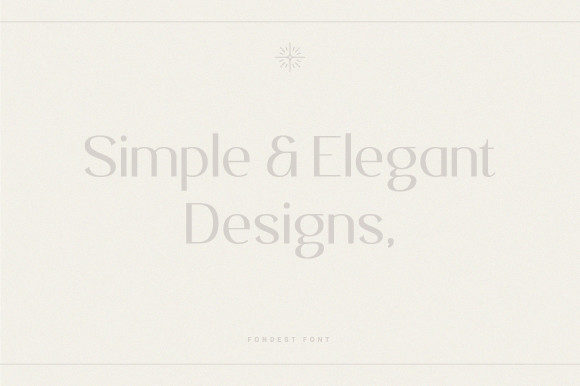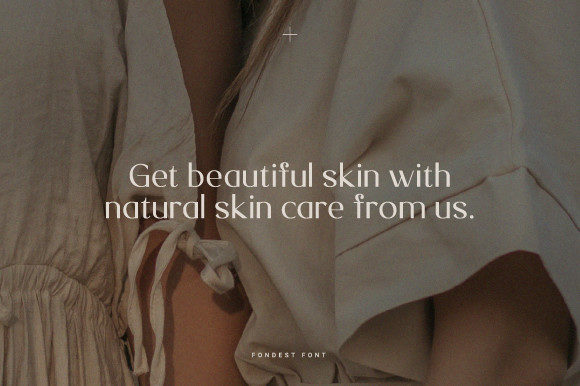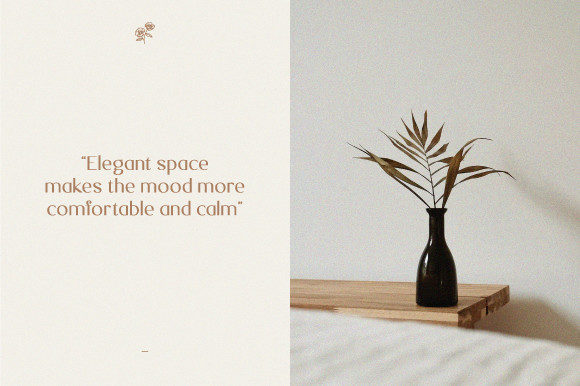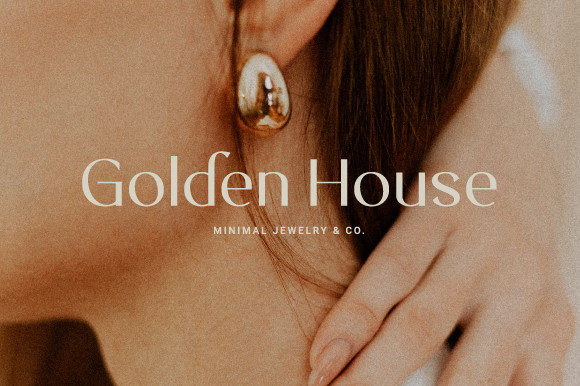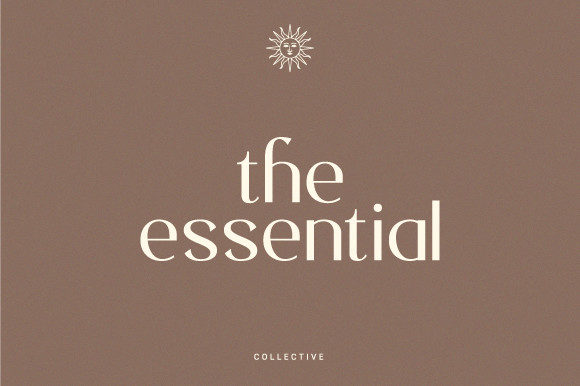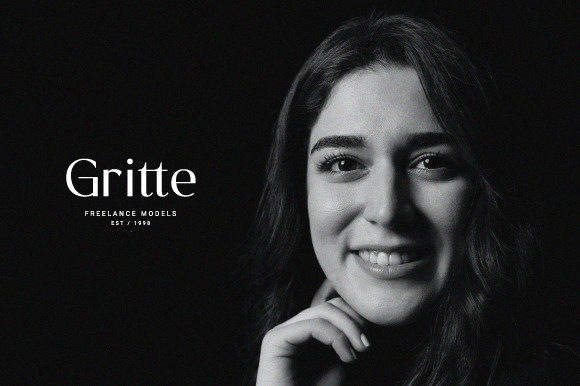
Fondest Font – Free Download
Introduction to Fondest Font
Fondest is a cool and neat sans serif font.
It will elevate a wide range of crafting ideas, from cards, to branding, labels and much more Add it confidently to your favorite creations and let yourself be amazed by the outcome generated.
Key Features of Fondest Font
Why Choose Fondest Font?